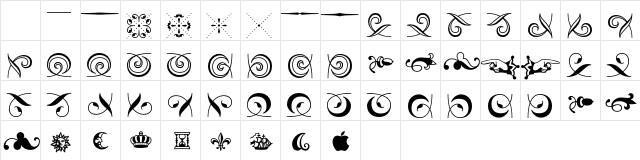
Complete HoeflerText Ornaments glyph index. Displaying only characters natively supported by HoeflerText Ornaments font.
HoeflerText is built around its visual character rather than neutral utility - its distinctive forms are designed to make an impression at display sizes.